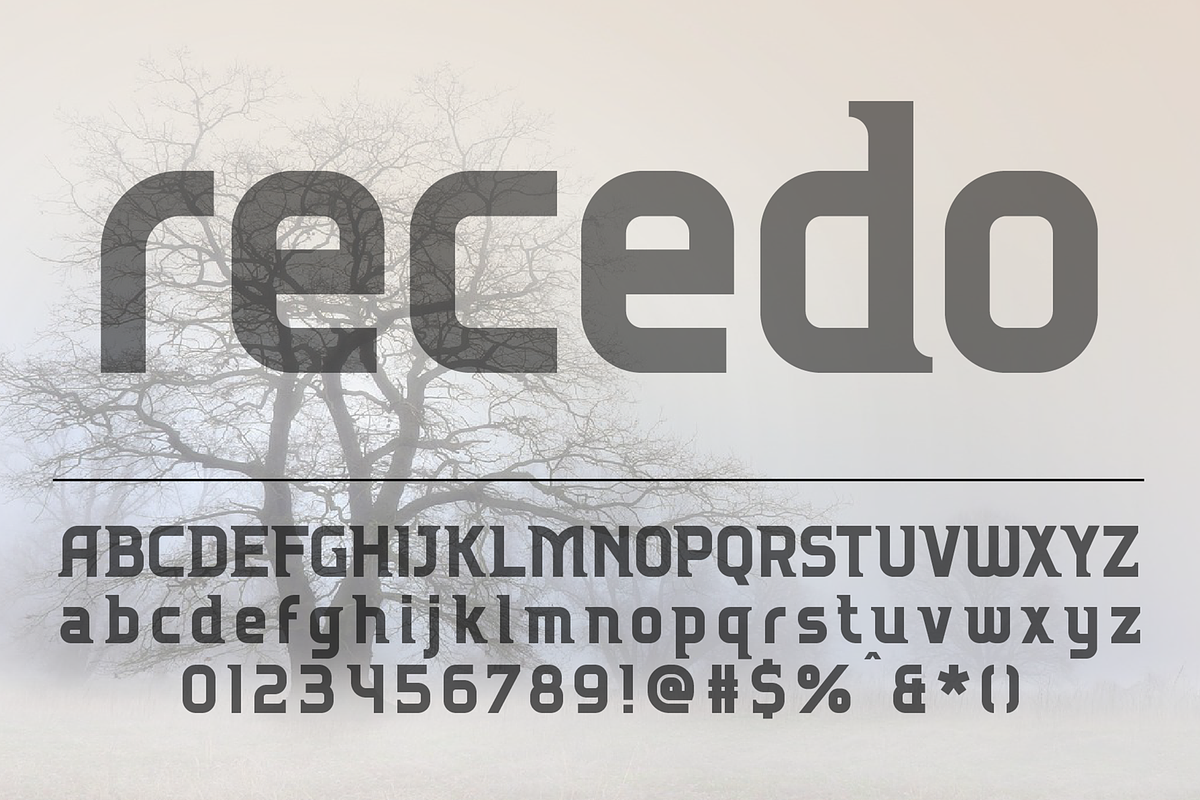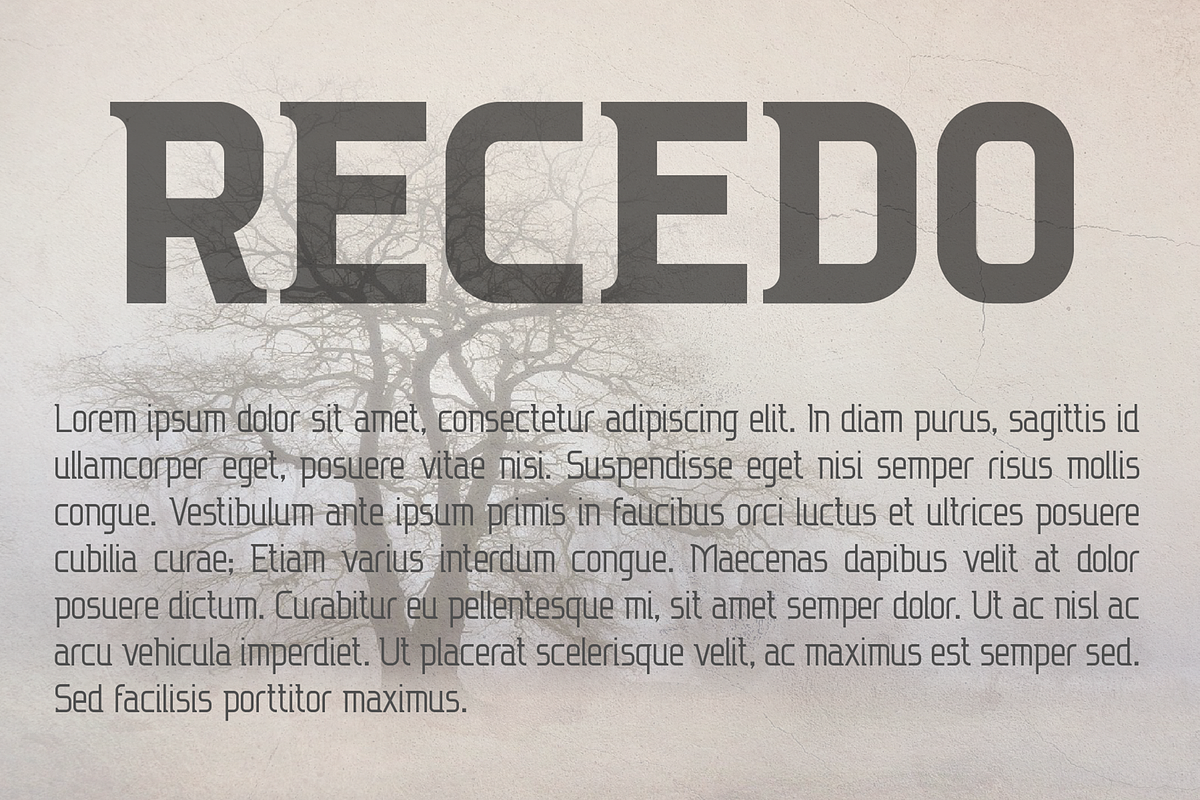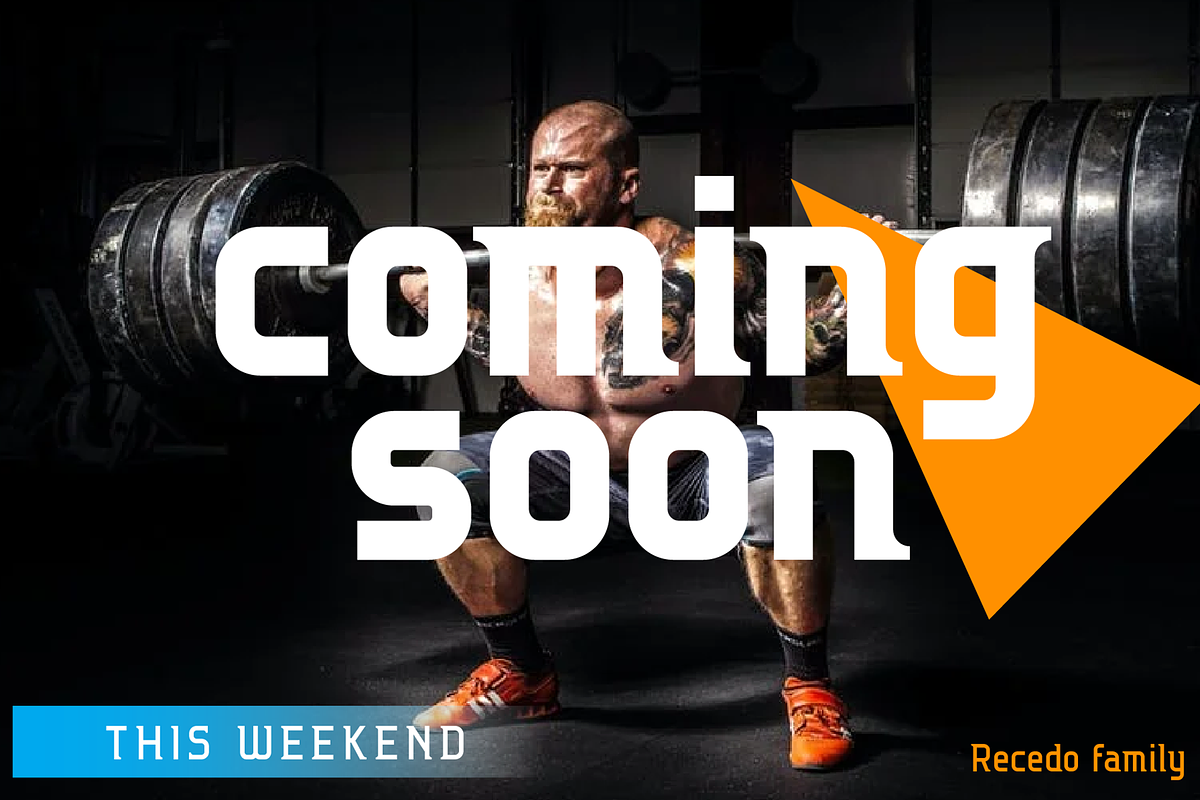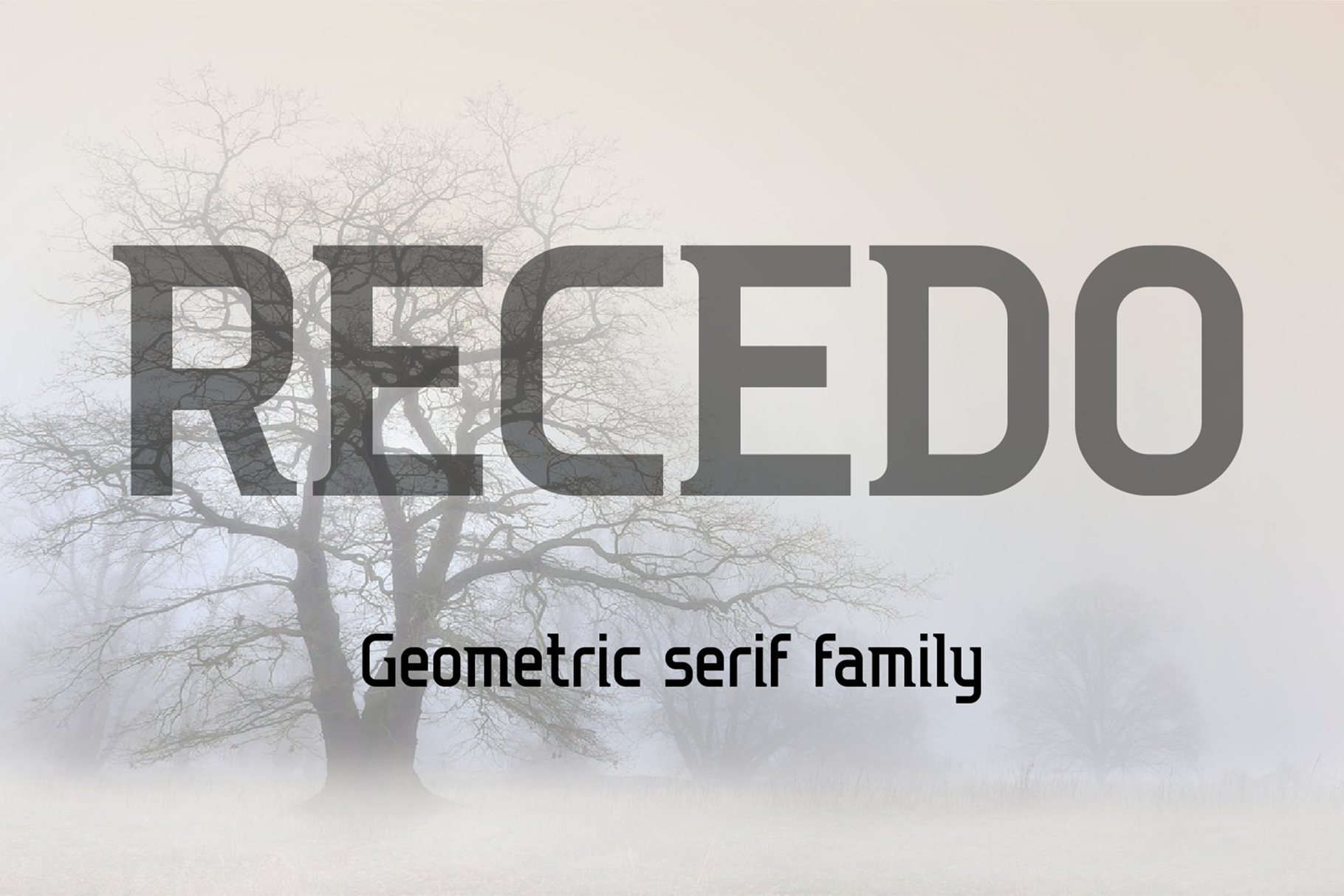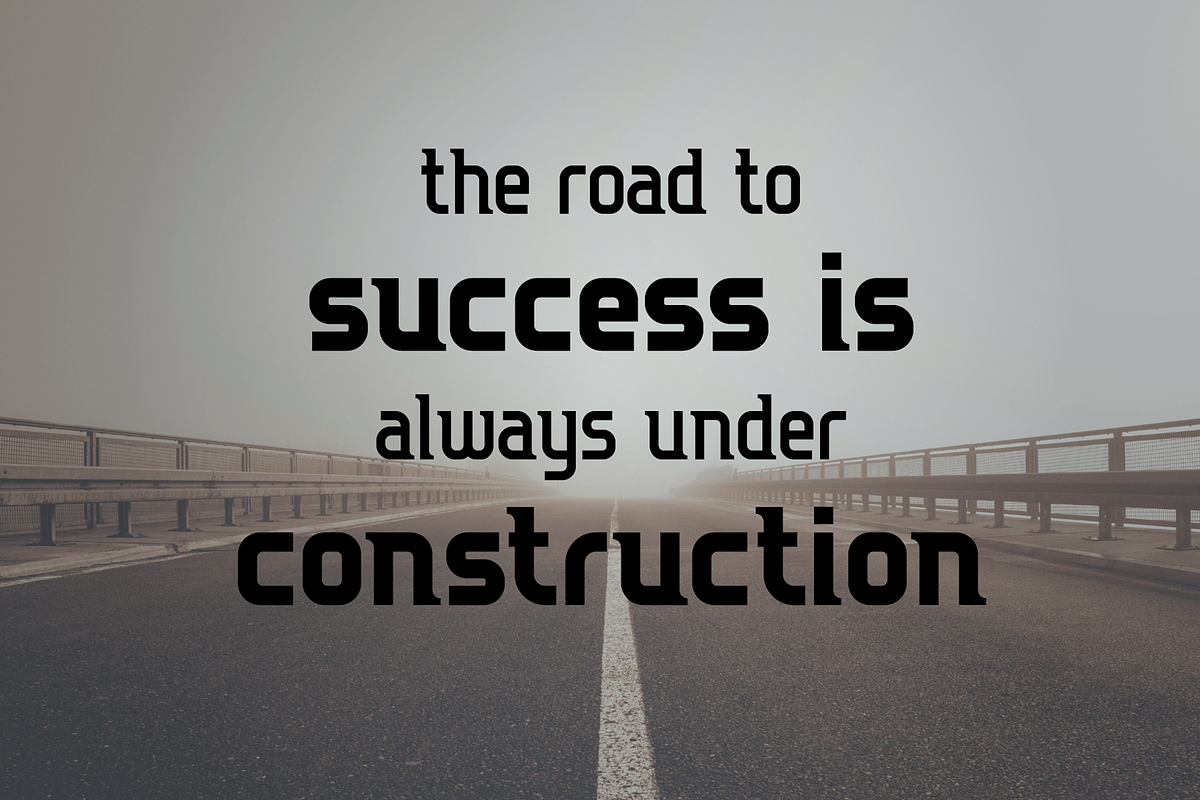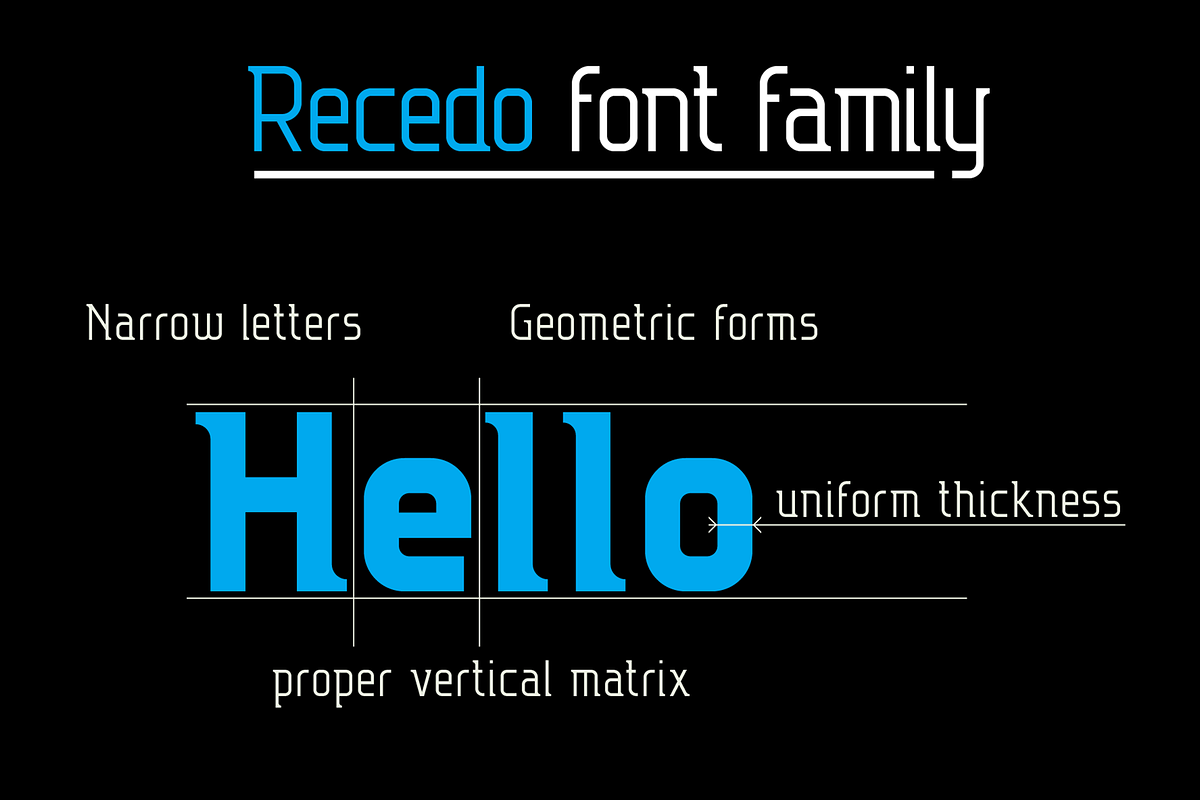
Recedo font family
Recedo is a modern narrow geometric font with serif, includes upper and lower case characters, Latin, Cyrillic, Latin Eastern Europe, Turkish, Baltic and other, 500+ symbols. Recedo family consists of 4 types of thickness. Recedo fonts will be useful in developing a brand, creating posters and other graphic products, and for word processing.